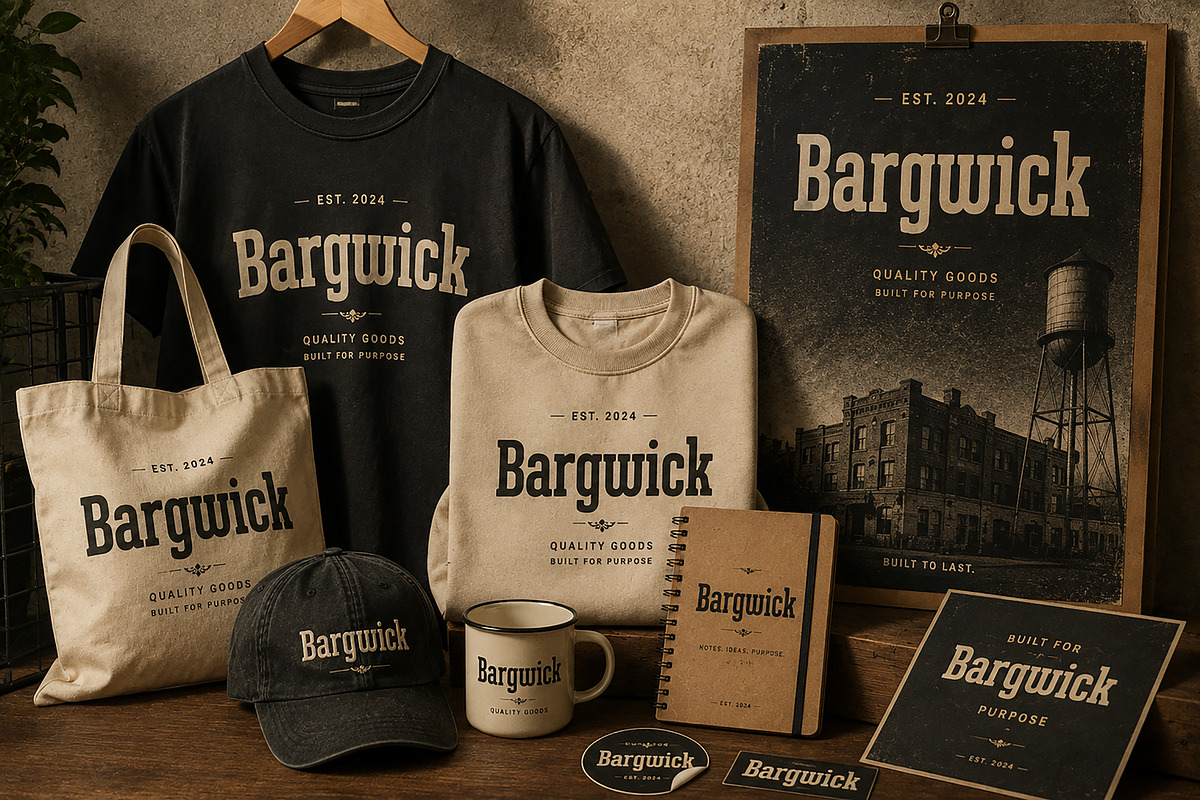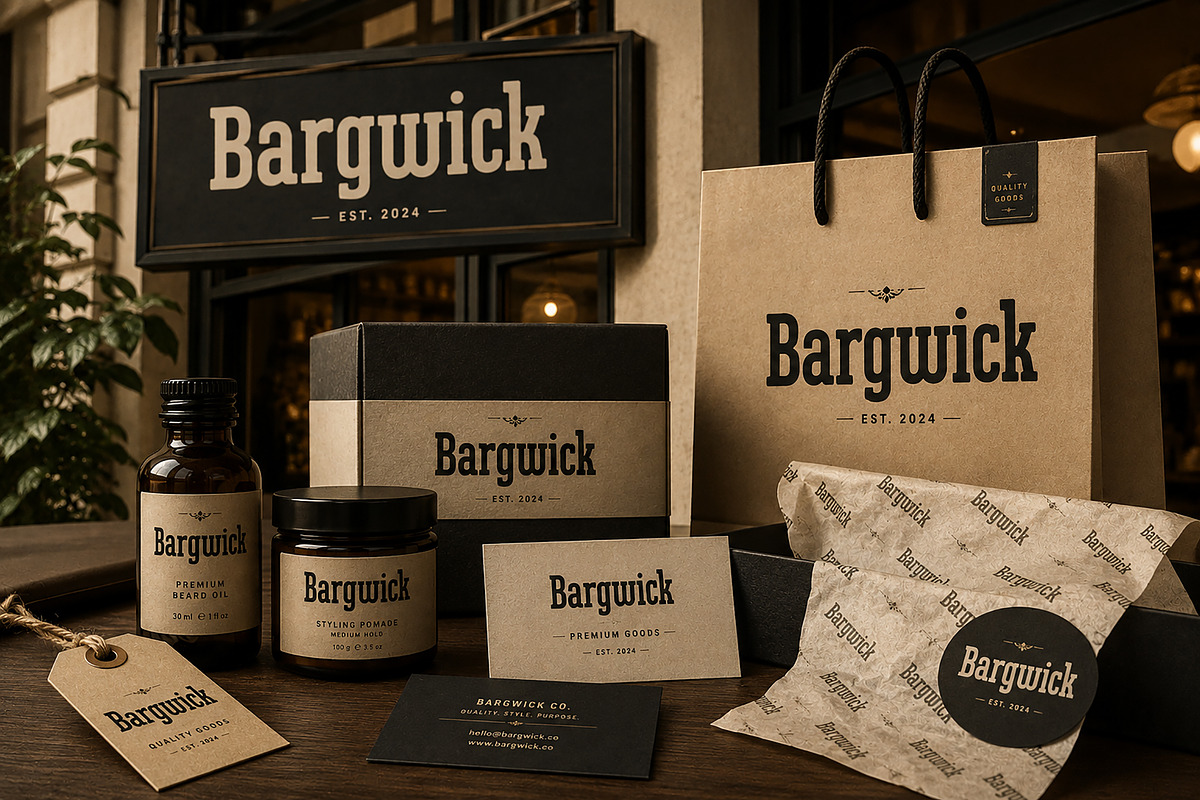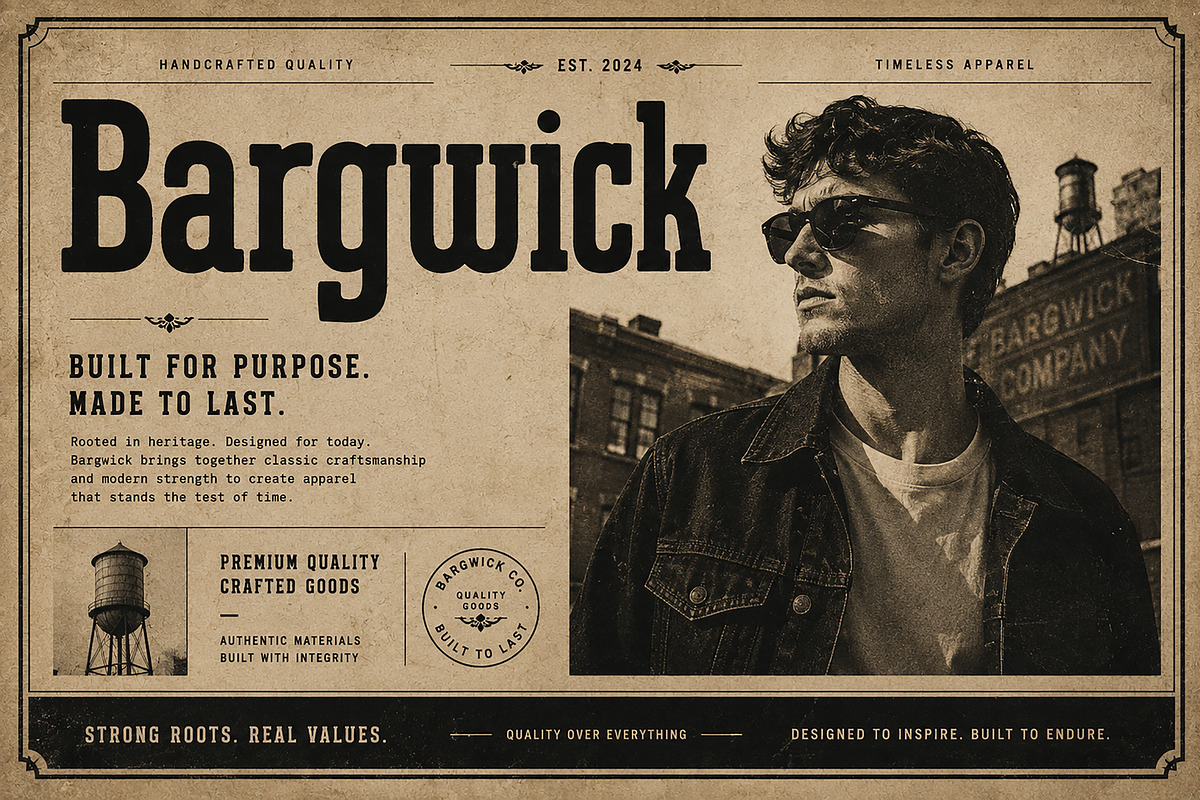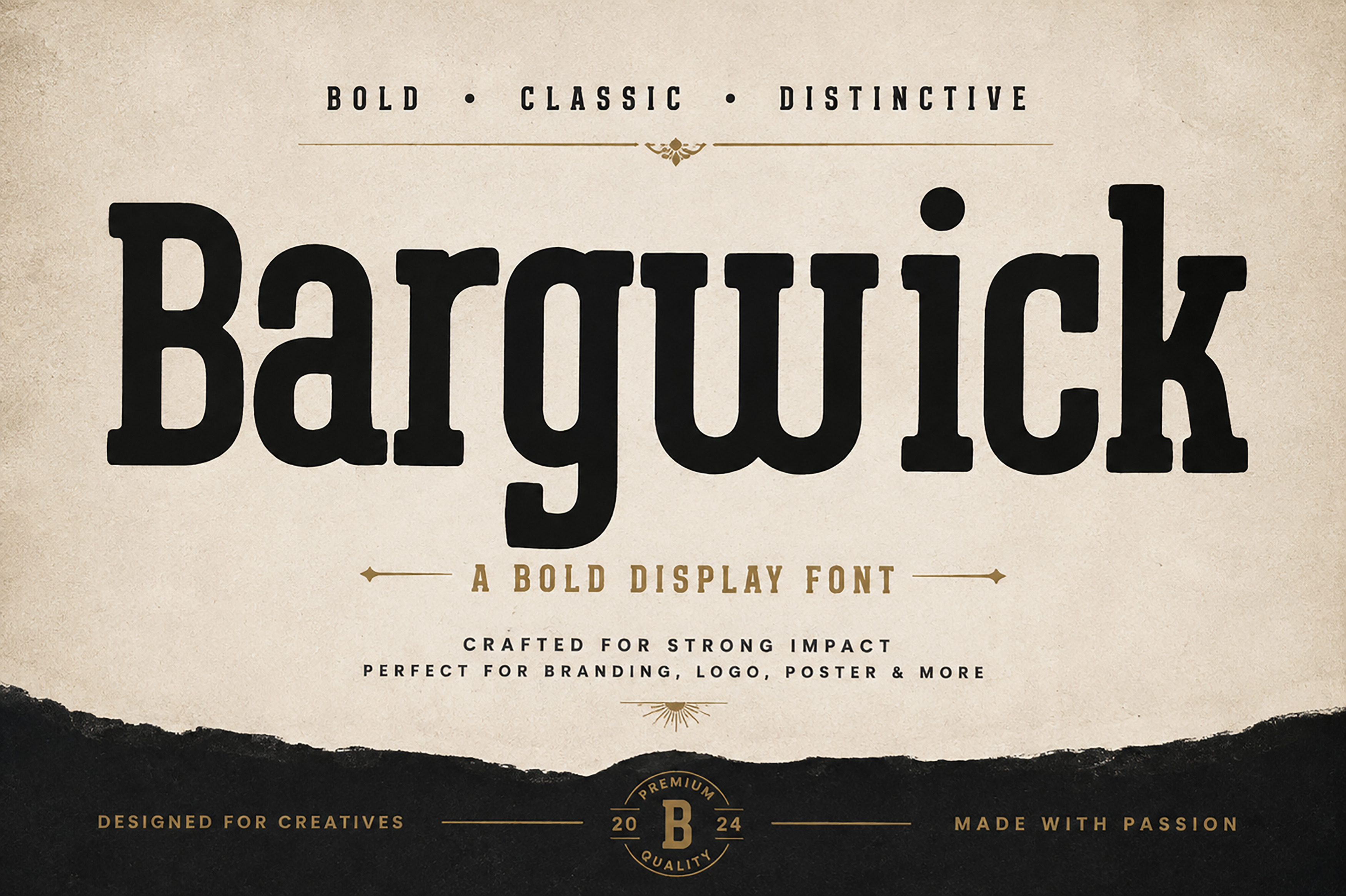
Bargwick _ display font
Bargwick is a bold vintage display font designed to make your typography stand out with a strong, classic, and distinctive personality. Its heavy letterforms and retro-inspired character make it an excellent choice for designs that need a confident visual impact.
Perfect for branding, logos, posters, apparel, packaging, labels, editorial designs, merchandise, badges, signage, and vintage-inspired creative projects.
Bargwick works especially well for projects that require a strong heritage, retro, masculine, or premium aesthetic. Whether you're creating a clothing brand, product identity, poster, packaging design, or merchandise collection, Bargwick adds an unmistakable display presence.
Branding & Logo Design
Vintage & Retro Designs
Apparel & T-Shirt Graphics
Posters & Advertising
Labels & Badges
Editorial Design
Merchandise & Print Design
Signage & Storefronts
Product Titles & Headlines
Creative Advertising
Style: Bold Vintage Display / Retro Serif
Type: Display Font
Create bold designs. Make a lasting impression with Bargwick.